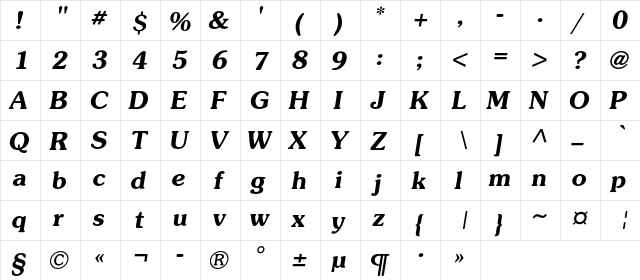
AGPresquireC Bold Italic
Design Context for AGPresquireC Typeface
AGPresquireC takes a measured approach to typography — its balanced proportions and neutral character make it a reliable workhorse for both digital and print work. The slanted form adds forward momentum and visual energy. Its bold stroke weight gives it real presence on the page.
Pro Tip: Use AGPresquireC for emphasis, pull quotes, and subheadings where its slanted energy can add rhythm to the layout.